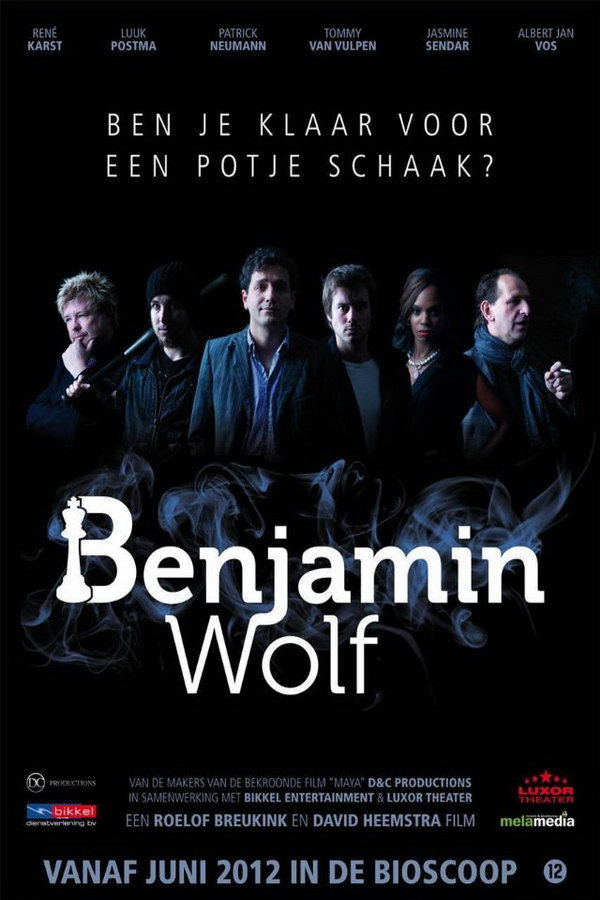
Benjamin Wolf Font
ActionBenjamin Wolf is a 2012 action comedy movie directed by Roelof Breukink and David Heemstra. The movie shows Wolf, Carlos, and Dum Dum joining a gang, but they are not aware of each other's existence until they are classified for an assassination. Due to unfortunate circumstances, the mission fails and their leader gives them an impossible last-change task out of frustration.
Ben Wolf's title in the poster was probably influenced by Museo designed by Jos Buivenga in 2008, with "Benjamin" in Museo 700 and "Wolf" in Museo 300. More details about the typeface can be found here.